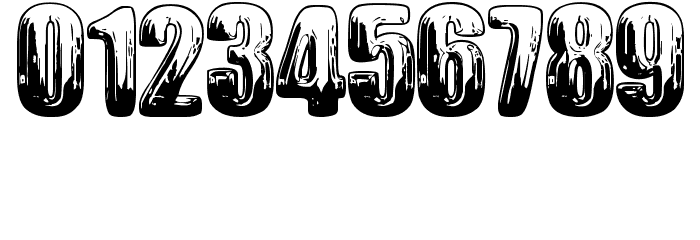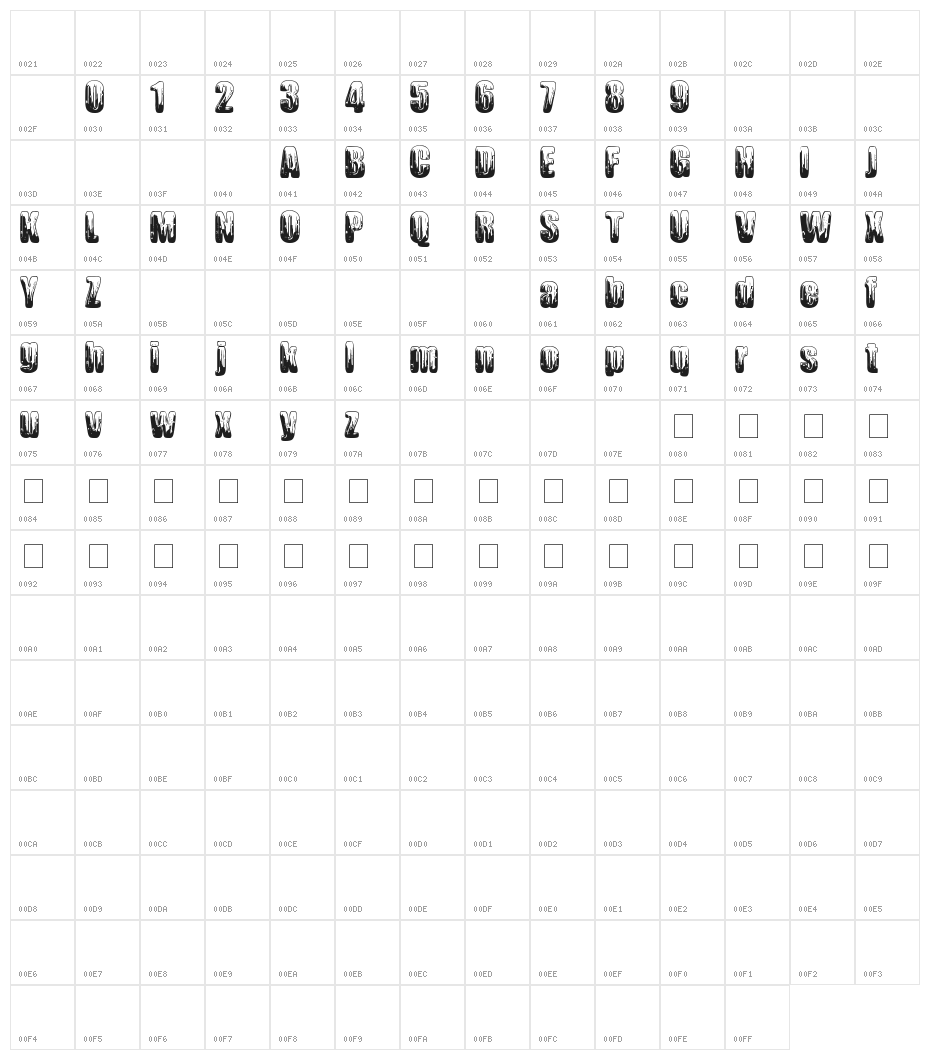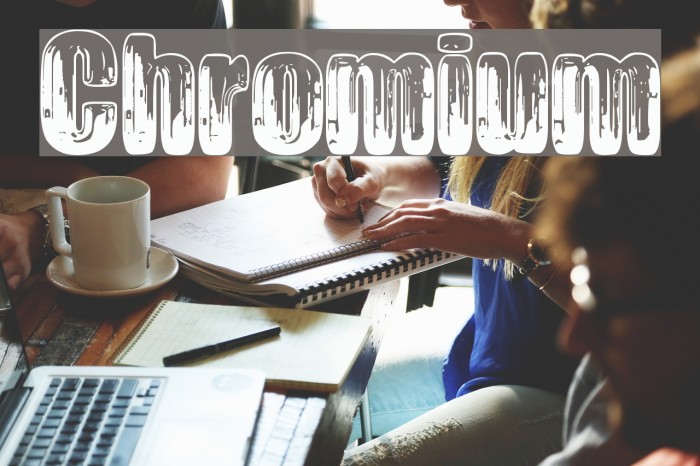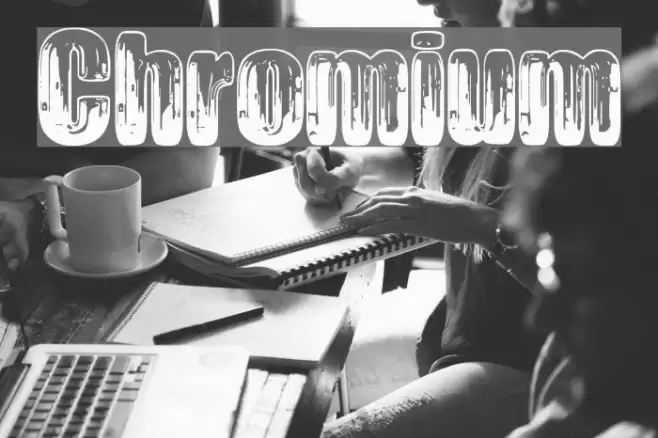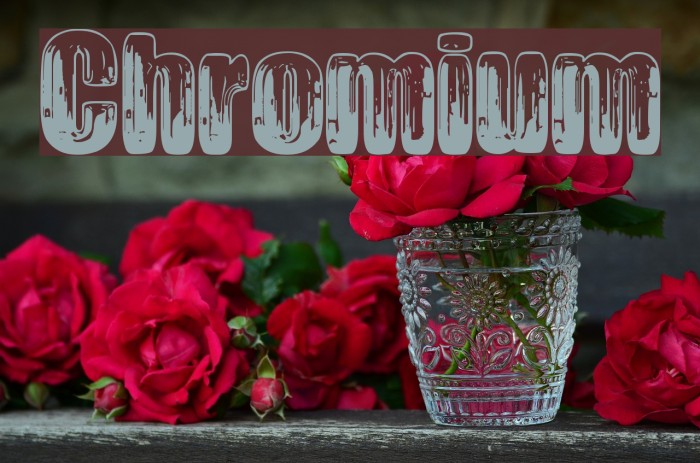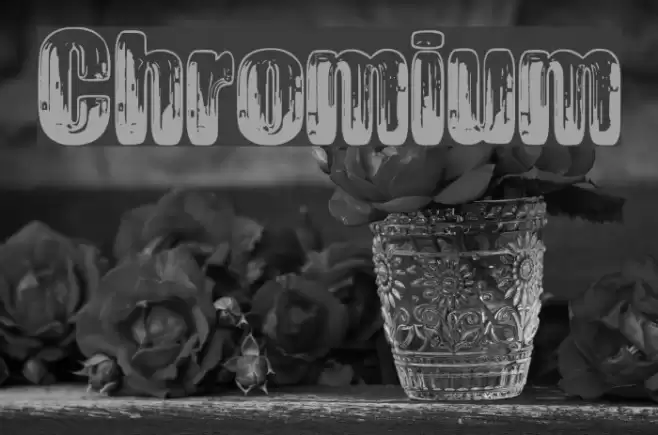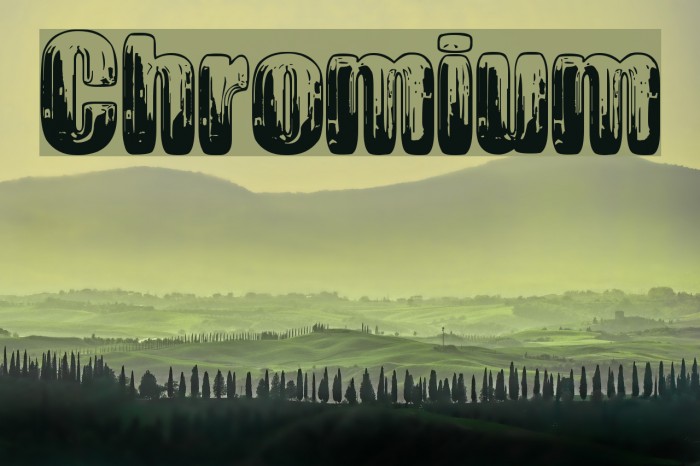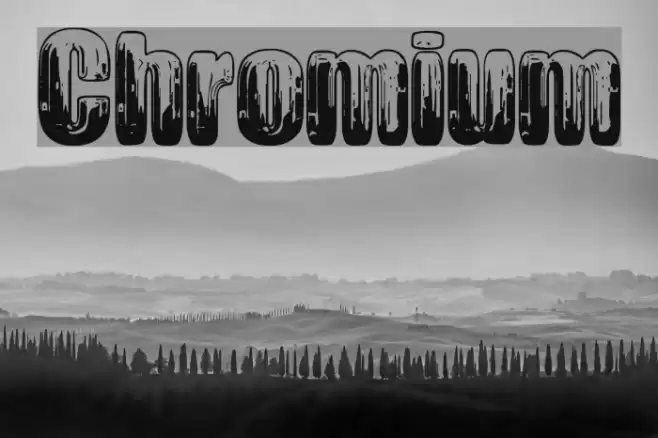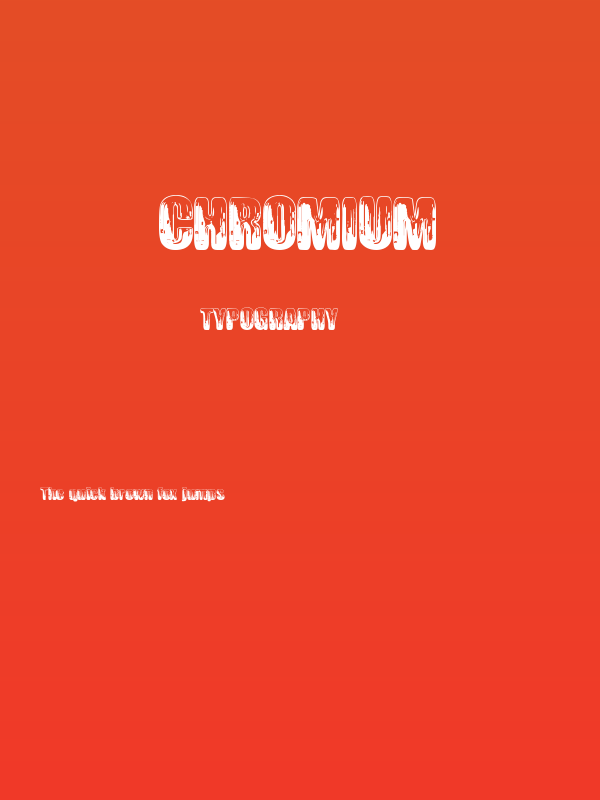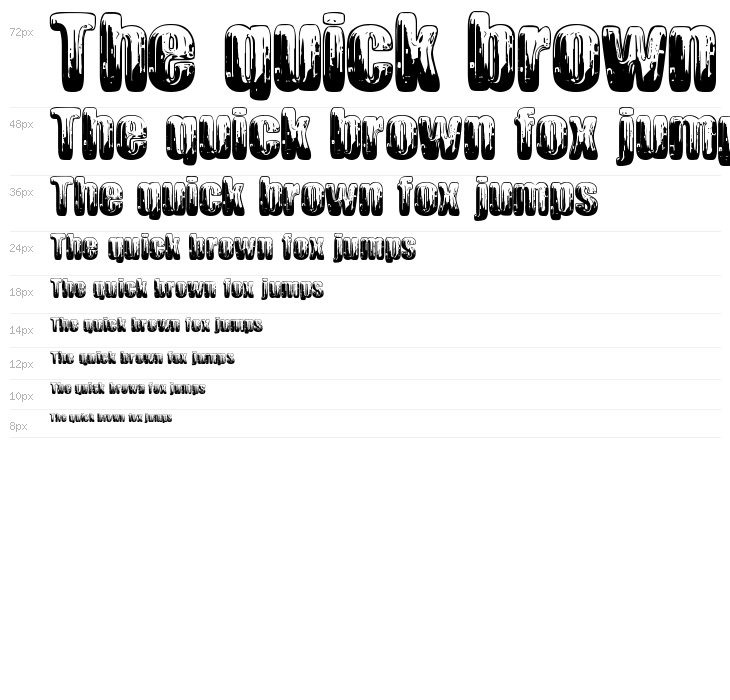
Chromium Font
Chromium Description
This font features a bold, decorative style with a distressed, textured appearance that resembles a metallic or chrome finish. The characters are thick and robust, with a three-dimensional effect that gives them a striking, eye-catching look. The uppercase and lowercase letters maintain a consistent design, with rounded edges and a slightly condensed form. The numbers and special characters follow the same aesthetic, ensuring uniformity across all glyphs. This font's unique style makes it ideal for projects that require a bold statement or a vintage industrial feel.
| Overall Style | Vintage, Decorative |
| Proposed Projects | Ideal for posters, album covers, branding, and any project needing a bold, vintage industrial aesthetic. |